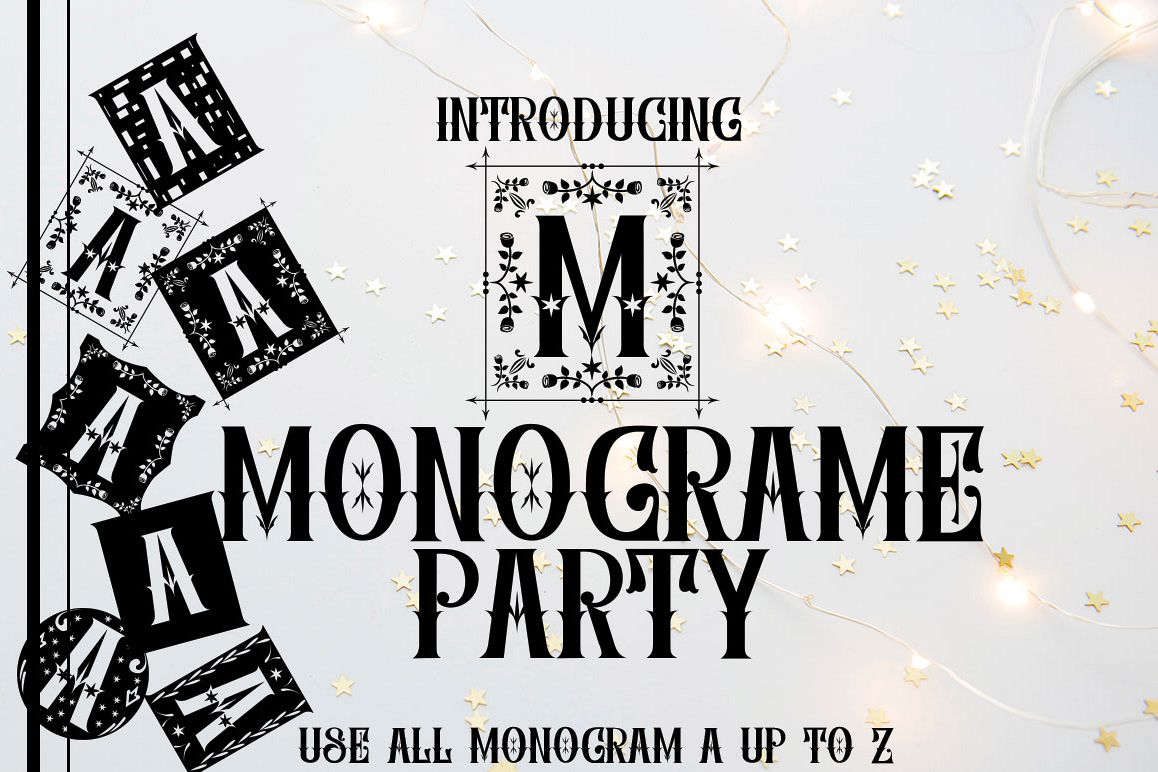
MONOGRAME PARTY
MONOGRAME PARTY This font was designed by handwriting, and it has a modern
and unique forms of calligraphy, the writing style is very natural and multiple
language support.